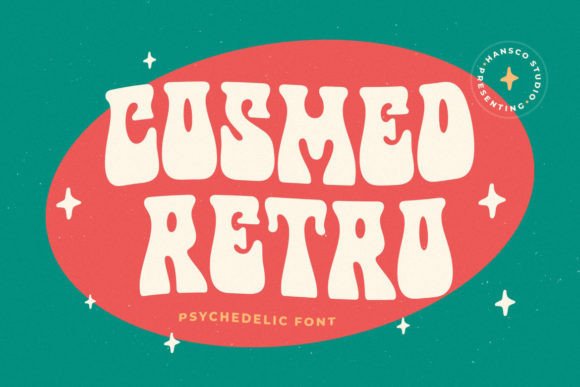
Introducing Cosmed Retro Font, the ultimate choice for vintage book enthusiasts and design aficionados! Created by the talented HansCo, this display font is guaranteed to captivate your imagination with its retro psychedelic style and unique wavy touch.
With Cosmed Retro Font, you can effortlessly transport your designs back in time, adding that special retro flair that instantly grabs attention. Whether you're working on logotypes, stickers, packaging design, or Cricut projects, this font is your secret weapon to creating eye-catching and nostalgic visuals.
Unleash your creativity and let Cosmed Retro Font be your partner in crime for all your design needs. Its versatility knows no bounds - from headlines to brand identities, from the apparel industry to posters and magazines, this font is here to elevate your projects to new heights.
Imagine the impact of Cosmed Retro Font on your YouTube channel or Instagram feed. It's the perfect tool to make your content stand out and leave a lasting impression on your audience. Websites and creative design projects will come to life with the help of this unique and captivating font.
Don't settle for ordinary when you can have extraordinary. Cosmed Retro Font embodies the essence of vintage charm, allowing you to evoke emotions and transport your viewers to a bygone era. Its nostalgic appeal is timeless, making it a must-have for any designer looking to make a statement.